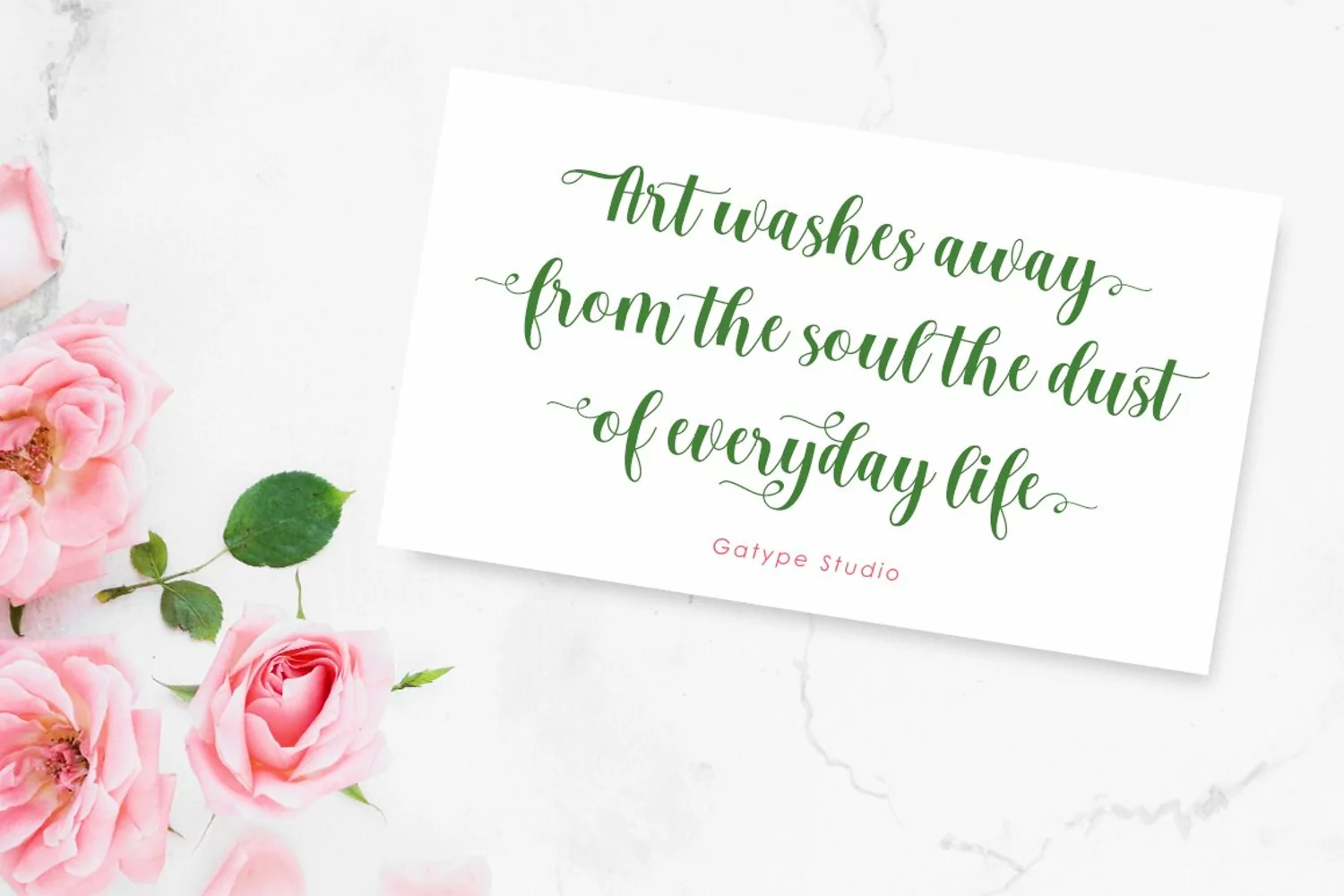
Gidget is an elegant script with a contemporary atmosphere and impeccable form, inspired by timeless classic calligraphy. Not too thin and not too thick, balanced and varied, born to luxury and beauty.
Hand-drawn design elements allow you to create many beautiful typographic designs in an instant such as branding, web and editorial design, prints, crafts, quotes, It's great for logos, wedding invitations, romantic cards, labels, packaging, name spelling and more.
Designer: khaidir